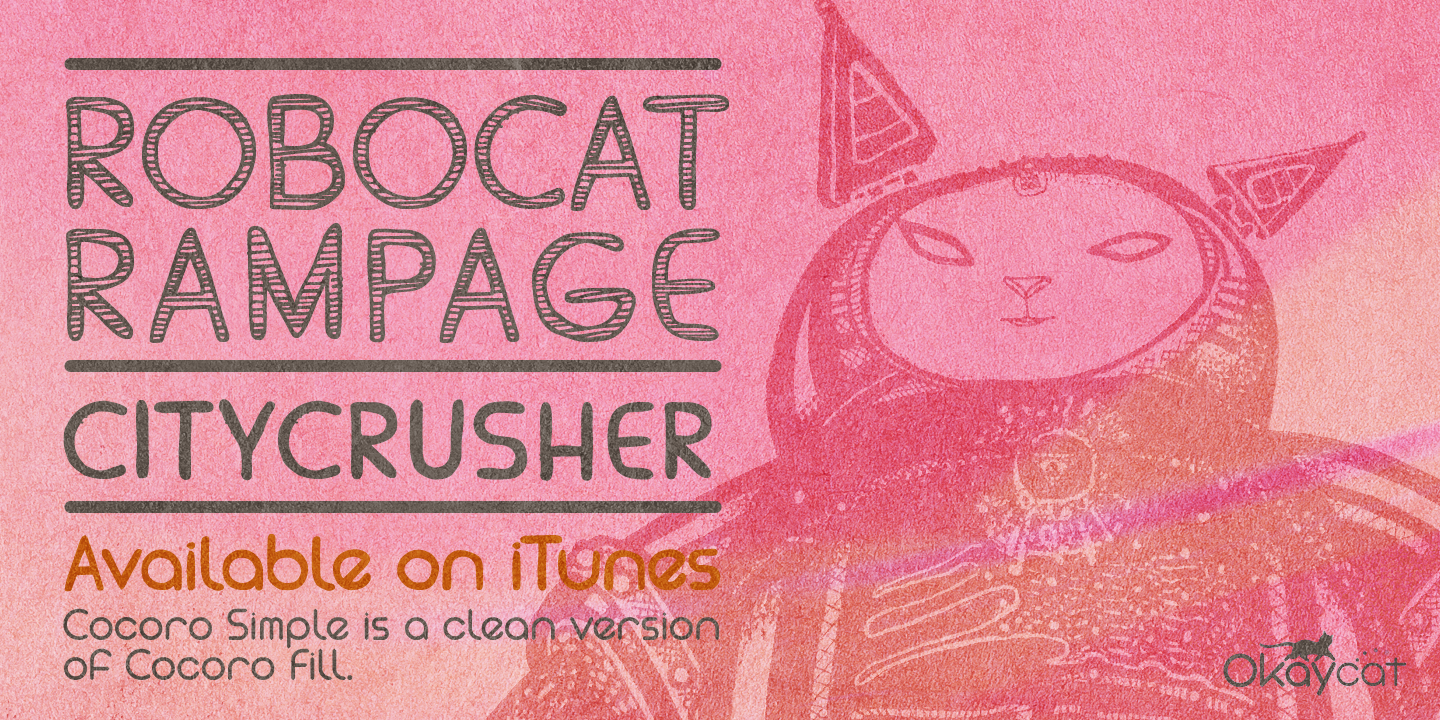
Cocoro Font is perfect for Japanese restaurant branding, zen meditation materials, minimalist design projects, wellness spa signage, mindfulness publications, serene website designs, peaceful greeting cards, and tranquil lifestyle branding.
What makes Cocoro Font exciting is its profound embodiment of Japanese aesthetic philosophy that brings inner peace and harmony to visual communication. The balanced letterforms and serene proportions create a sense of calm mindfulness that resonates with the ancient concept of "kokoro" - the unity of heart, mind, and spirit.
Cocoro Font family includes regular, light, bold, condensed, and zen versions, plus traditional Japanese-inspired ornaments, meditation symbols, and calligraphic elements that enhance the peaceful typography experience with spiritual elegance.
Find inner design harmony with Cocoro Font Free Download, the ultimate choice for projects seeking tranquility and mindful communication. This serene typeface embodies the essence of Japanese minimalism through letterforms that whisper rather than shout, creating typography that soothes the soul while delivering clear messaging. The thoughtfully crafted characters feature balanced proportions that reflect centuries of Japanese aesthetic wisdom, bringing peace and clarity to any design application. Wellness professionals and mindful brand creators consistently select this font for projects requiring authentic connection to zen philosophy combined with contemporary functionality. Its comprehensive meditation-inspired elements provide unlimited possibilities for creating calming experiences that nurture the spirit while engaging the mind. Experience the profound tranquility of Japanese-inspired typography that transforms your communications into moments of mindful reflection, establishing your brand as a sanctuary of peace in today's chaotic digital landscape.